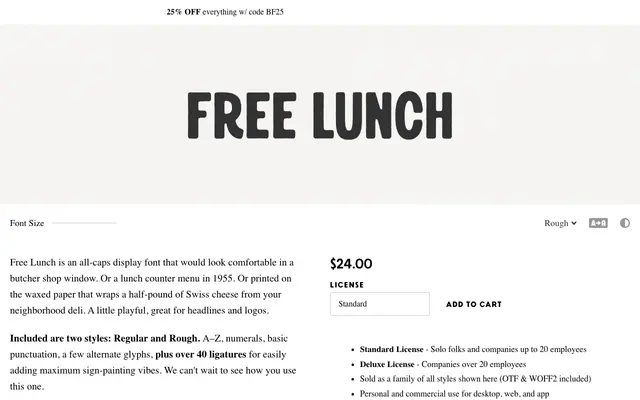
Free Lunch
An all-caps display font with a mid-century sign-painting character, offered in Regular and Rough styles with over 40 discretionary ligatures.
Built around the visual language of butcher shops, lunch counters and deli waxed paper, this typeface leans into hand-lettered Americana without feeling laboured. Two styles, Regular and Rough, are included alongside alternate glyphs for A, E, L, T, Y and the at sign, plus an extensive set of discretionary ligatures covering combinations like TH, QU and double-letter runs. Best suited to headlines, logos and short-form packaging where a nostalgic, slightly playful tone is needed.
An all-caps display typeface with a hand-lettered, sign-painting aesthetic, offering Regular and Rough styles suited to headlines and retro-themed branding rather than body text.